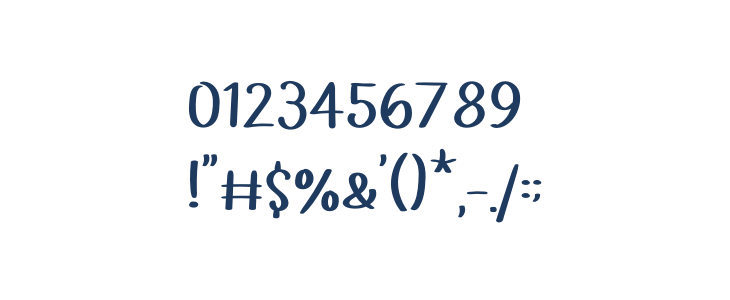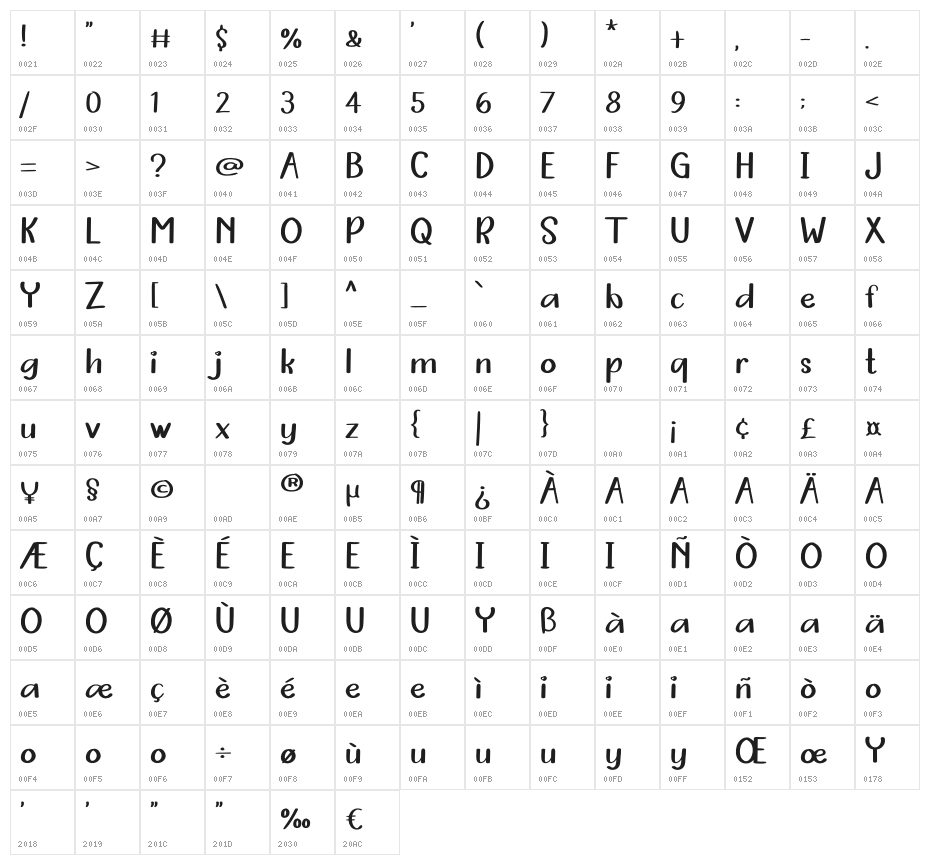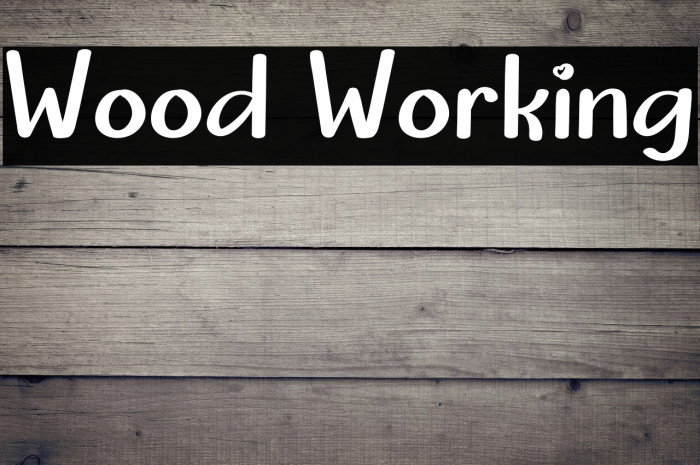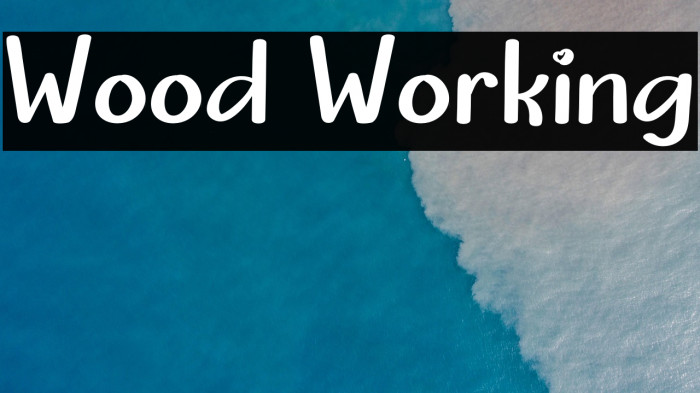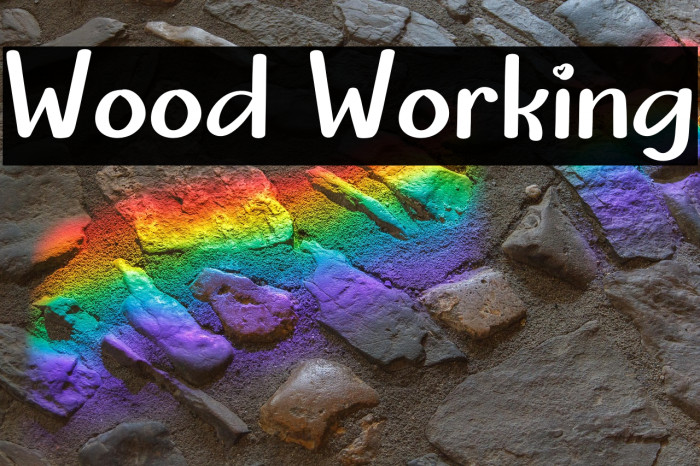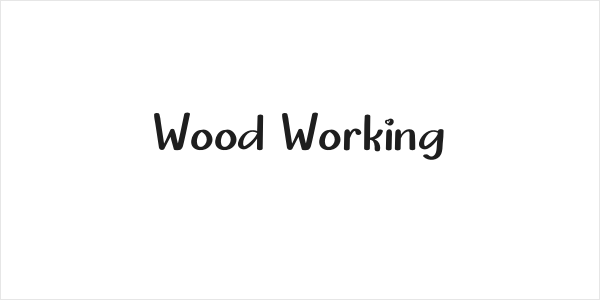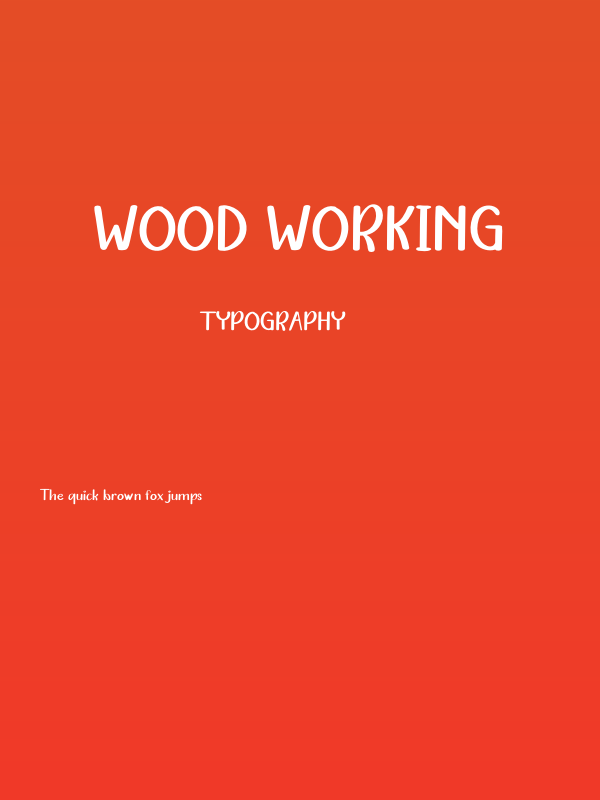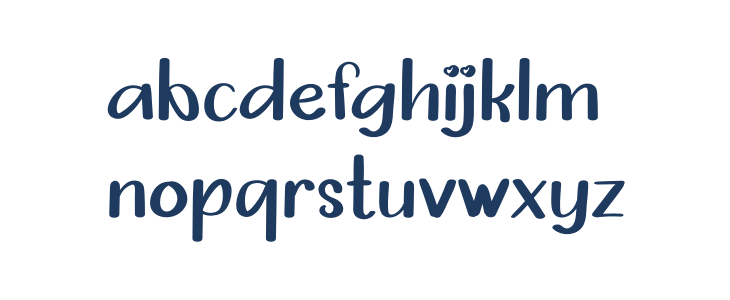
Wood Working Font
Wood Working Description
This font features a playful and informal style with a handwritten appearance. The letters are slightly rounded and have a casual, friendly vibe. The uppercase and lowercase characters maintain a consistent style, with smooth curves and a moderate thickness that ensures readability. The numerals and special characters are designed to complement the alphabet, maintaining the same whimsical and approachable aesthetic. This font is versatile, suitable for projects that require a personal touch or a relaxed, creative feel.
| Proposed Projects | Ideal for greeting cards, children's books, casual branding, and creative posters. |